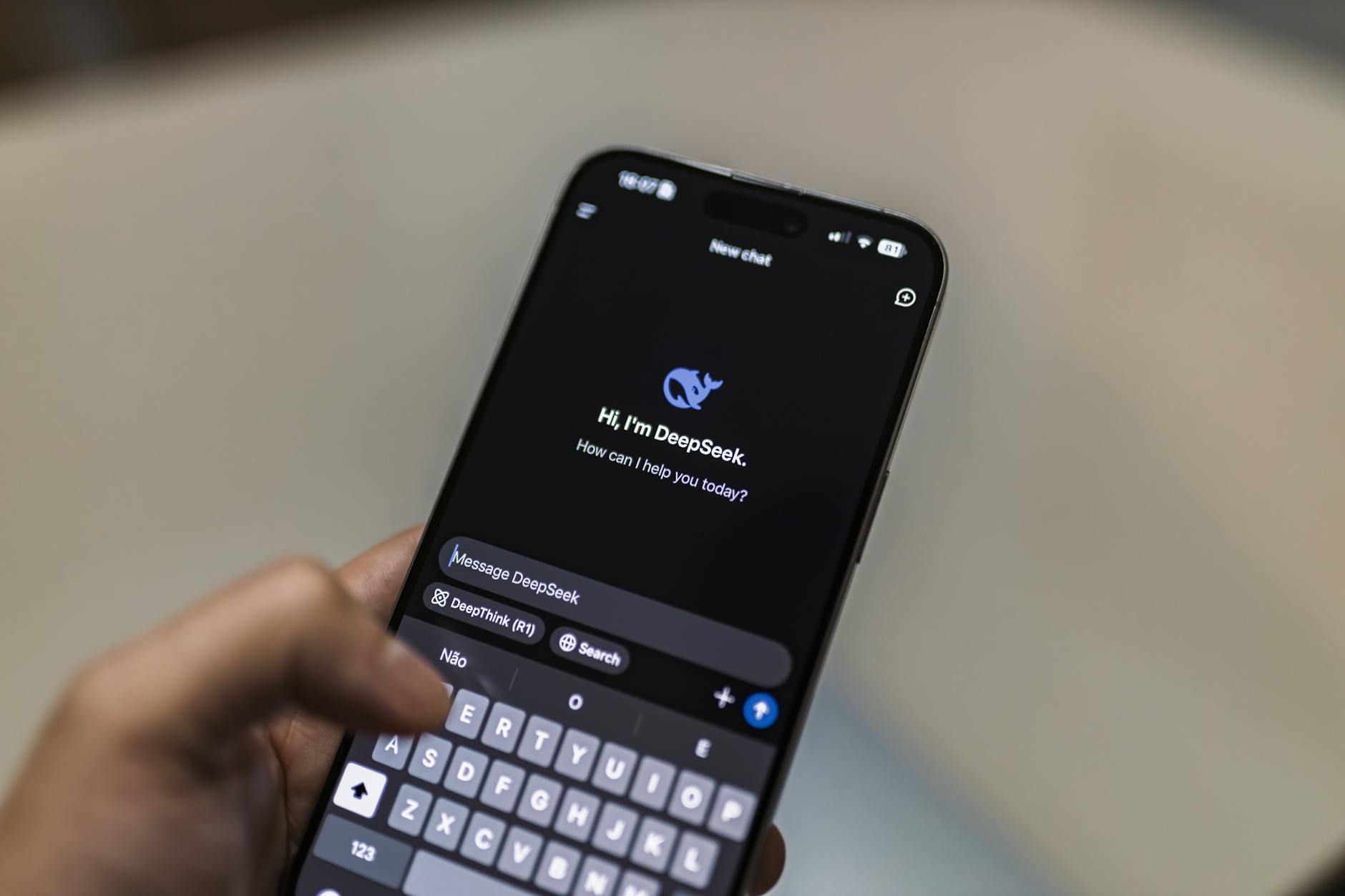
The Weight of the Dark: How to Optimize Web Typography for Light and Dark Modes
When dark mode transitioned from a niche developer preference to a system-level expectation, designers and developers assumed the transition would be simple: just flip the color variables. Change the background from white to black, change the text from black to white, and call it a day.
But if you have ever looked at white text on a dark background and felt your eyes straining, or noticed that the letters seemed oddly thick and blurry, you have run into a fundamental optical illusion. Text physically looks different depending on the background it sits on.
To create truly accessible, beautiful user interfaces, we must understand the weight of the dark and optimize our typography for both spectrums.
The Optical Illusion: Irradiation
The reason dark mode typography requires special attention comes down to physics and human biology. This phenomenon is known as the irradiation illusion (or halation).
Light objects on a dark background appear larger and more luminous than dark objects of the exact same size on a light background. On our screens, light-colored subpixels bleed into the surrounding dark pixels.
The practical consequence of this is that white text on a black background looks heavier (bolder) than black text on a white background.
If you use a font weight of 400 (Regular) in light mode, that same weight can look closer to 500 (Medium) in dark mode. This excess "glow" fills the counters (the enclosed spaces inside letters like o, e, and a), reducing legibility and causing eye fatigue over long reading sessions.
The Solution: Variable Fonts to the Rescue
Historically, adjusting font weight for dark mode was difficult. Standard web fonts are loaded in static weights (e.g., 300, 400, 500, 700). Stepping down from a Regular 400 to a Light 300 in dark mode is often too extreme, making the text look spindly and weak.
With Variable Fonts, we have a continuous axis of weight adjustment. This allows us to subtly shave off a fraction of the font's weight in dark mode—just enough to counteract the irradiation illusion without losing the visual hierarchy.
By reducing the weight from 400 to 370 in dark mode, the characters occupy the exact same perceived optical weight as they do in light mode.
Adjusting Space and Tracking
Font weight is only half the battle. Because light text on a dark background bleeds outward, the negative space between characters shrinks.
To maintain optimal legibility:
- Increase Letter-Spacing (Tracking): Give your characters room to breathe. A subtle increase of
0.01emto0.02emkeeps letters from bleeding into one another. - Increase Line Height (Leading): Because dark mode feels denser, increasing the
line-heightslightly (e.g., from1.5to1.55) provides essential breathing room between lines of text.
Contrast and Color Selection
Pure white text (#FFFFFF) on a pure black background (#000000) creates too much contrast. The extreme luminance ratio causes visual vibration, making it painful to read.
Instead, aim for a dark gray or deep slate background combined with an off-white, light gray, or warm cream text color. A background like #121212 or #1E293B combined with text colored #F1F5F9 or #E2E8F0 will easily pass WCAG AA and AAA accessibility contrast guidelines while remaining comfortable for the eyes.
Conclusion
Designing for dark mode is more than a simple color-inversion script. By understanding how light behaves on digital screens, we can use CSS variables, variable fonts, and careful spacing adjustments to build responsive interfaces that look incredibly polished, crisp, and comfortable in any light.